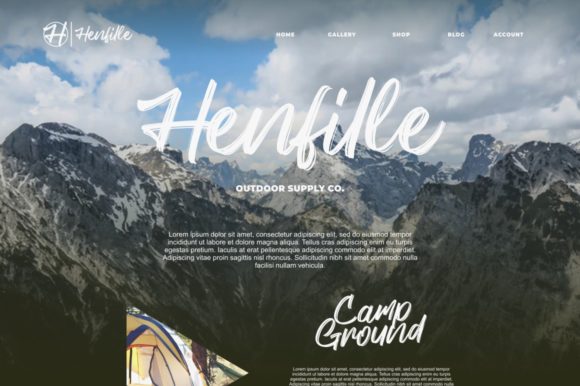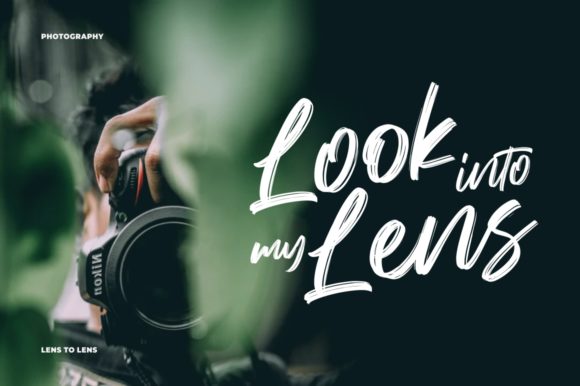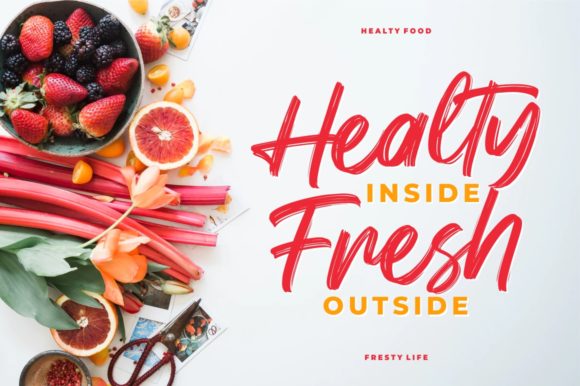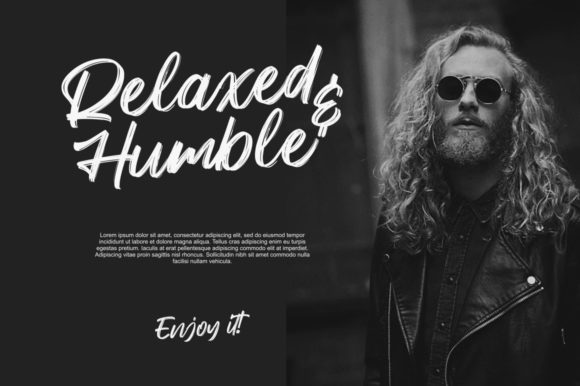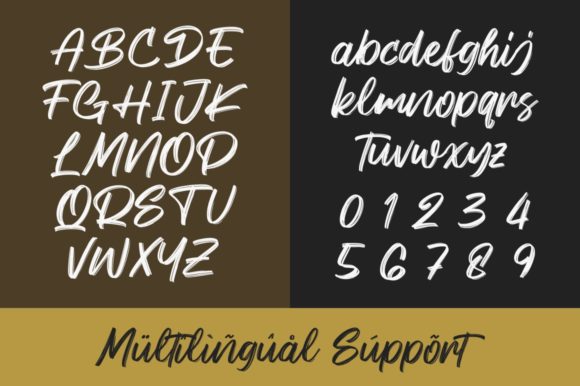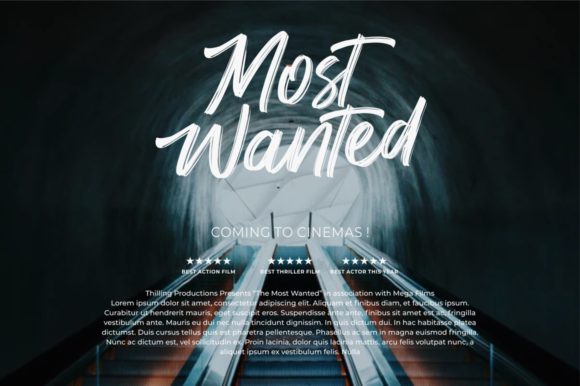
Introduction to Keypass Font
Have you ever found yourself sitting at your desk, staring at a blank page, waiting for the perfect font to spark your creativity? That’s where Keypass Font comes in – a bold and fresh brush font that’s sure to ignite your imagination and take your design projects to the next level.
As a designer, you know how crucial a high-quality font can be in bringing your creative vision to life. With Keypass Font, you’ll have access to a unique script that’s perfect for adding a personal touch to your designs. Whether you’re working on a logo, a brochure, or a social media campaign, this font is sure to make your project stand out from the crowd.
Key Features of Keypass Font
- Unique and modern font style, ideal for modern designs and applications.
Honest Review: Keypass Font
I recently came across the Keypass Font, a high-quality design resource that I’d love to share my thoughts on. The first thing that caught my attention was its modern and sleek aesthetic, making it perfect for a wide range of creative projects.
- Modern and clean design: The Keypass Font has a minimalist approach that makes it versatile and easy to use in various design contexts.
- High-quality glyphs: The font features detailed and well-crafted glyphs, ensuring that your designs look professional and polished.
While the Keypass Font is a great addition to any designer’s toolkit, there are a few limitations to consider:
- Limited character set: The font’s character set may not be as comprehensive as some other fonts, which could be a drawback for designers who need to work with a wide range of languages or special characters.
The Keypass Font is a solid choice for designers looking for a modern and clean font that’s perfect for a variety of creative projects. While it may have some limitations, its high-quality design and free download make it an excellent resource for designers of all levels.
Tips for Getting the Most Out of Keypass Font
Experiment with different font sizes, colors, and styles to create a unique look. Use the Keypass Font in combination with other design elements to add depth and interest to your designs. For a more dramatic effect, use the font with a transparent background and layer it with other design elements.
The Keypass Font is ideal for creative projects such as logo designs, business cards, and brochures. It’s also perfect for presentations, documents, and websites that require a high-quality, professional font.